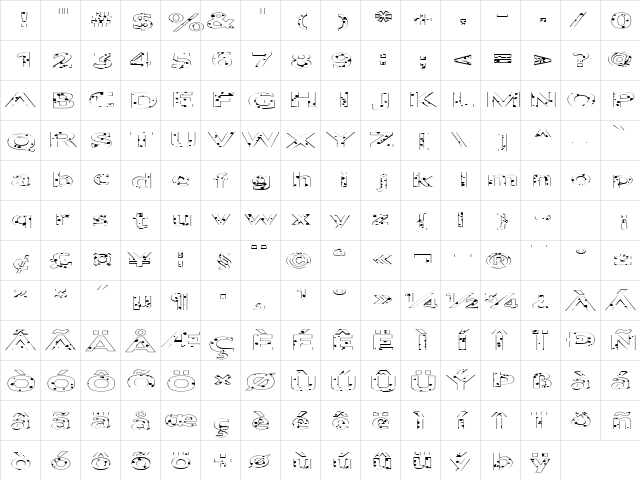
FZ BASIC 55 SPOTTED EX Normal Font Preview
FZ BASIC 55 SPOTTED EX Normal
Design Context for FZ BASIC 55 SPOTTED EX Typeface
FZ BASIC 55 SPOTTED EX is a composed and adaptable typeface that performs quietly and consistently across a wide range of design contexts.